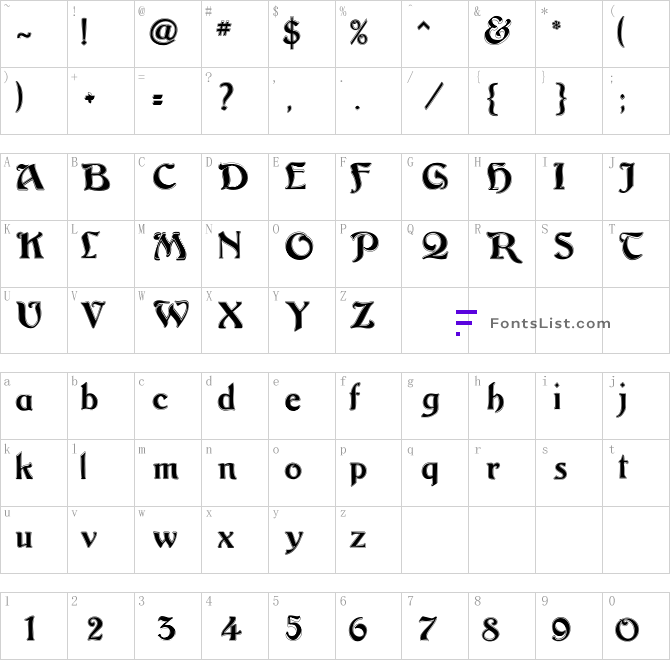
- Font Name:Argos George Contour
- Copyright:Copyright (c) Typographer Mediengestalter, 2000. All rights reserved. Designed by G. Lemmen in the beginning of the 20th century. Digitized and hinted by Dieter Steffmann, Kreuztal
Argos-George-Contour.ttf is a very beautiful artistic font, Argos-George-Contour.ttf is widely used in the design and printing of various books and pictures,Argos-George-Contour.ttf has a strong visual impact,Argos-George-Contour.ttf is a commonly used font in newspapers, magazines and books, and is used in posters, e-commerce Poster design, store design, logo design, font design and other fields.Argos-George-Contour.